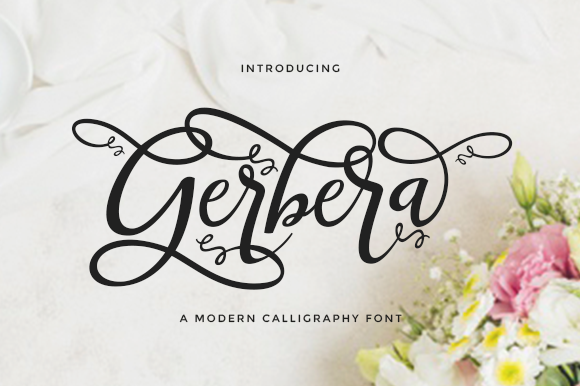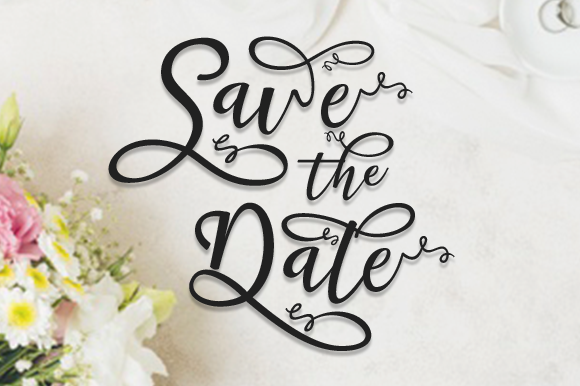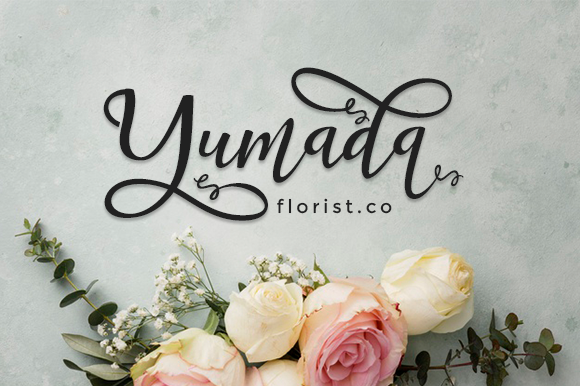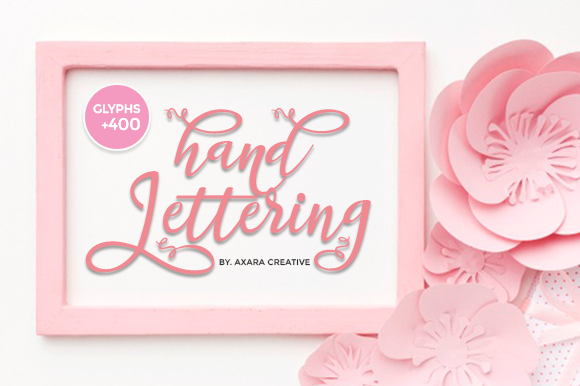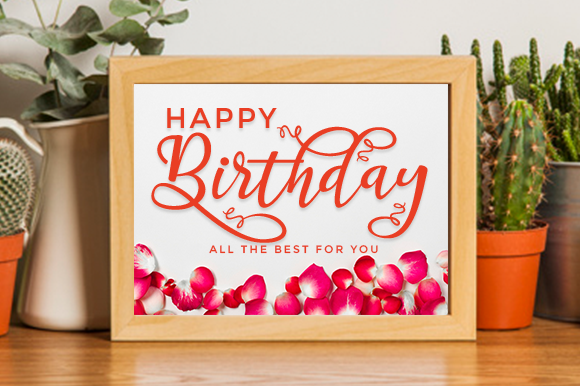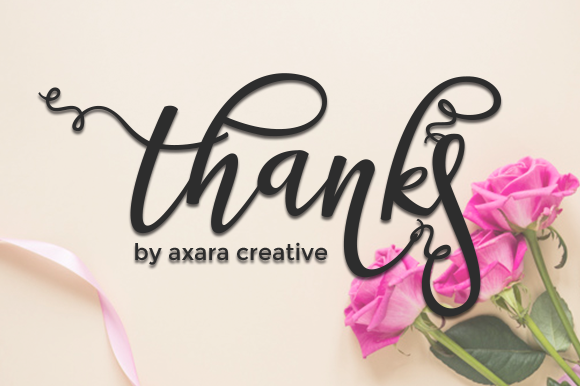
Gerbera Font
About Gerbera Font
Gerbera is a chic, refined script font that emanates sophistication and elegance. It features gorgeous swashes and ligatures that make this script incredibly versatile.